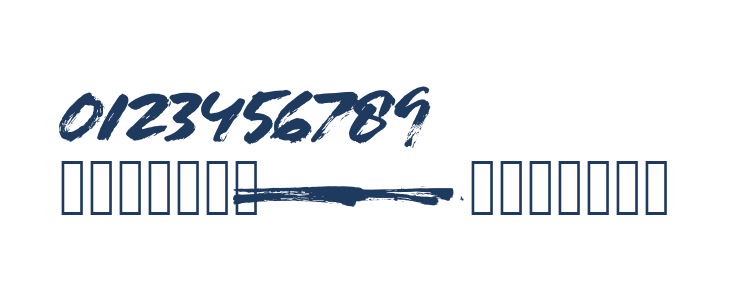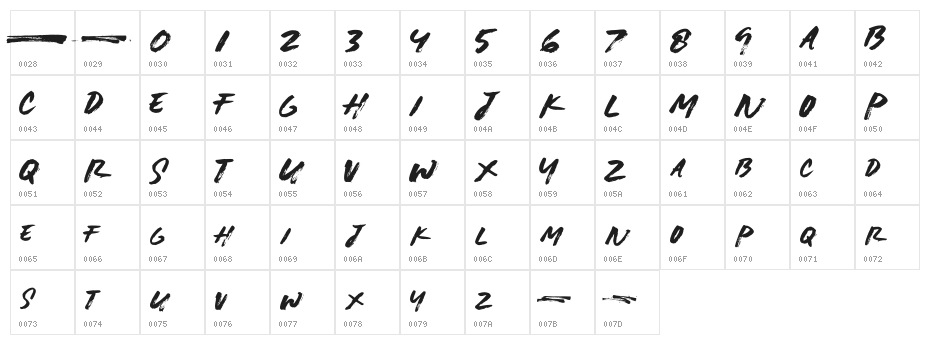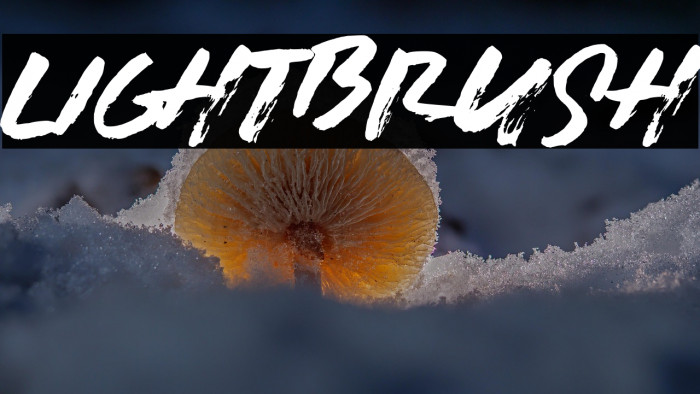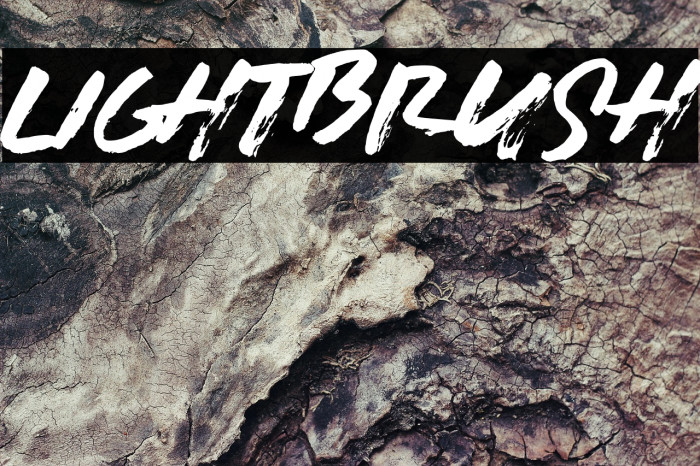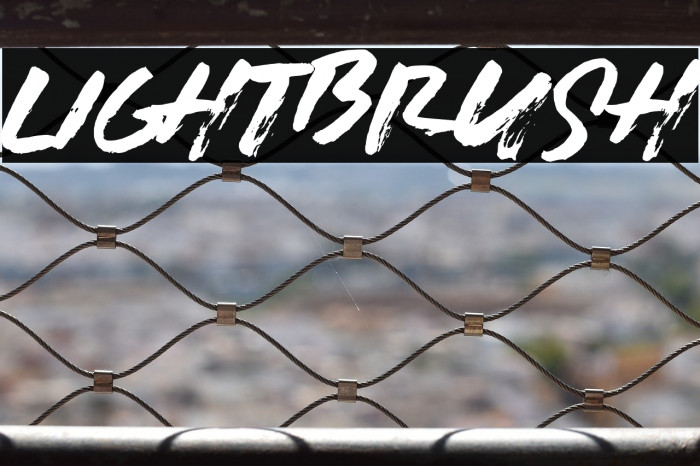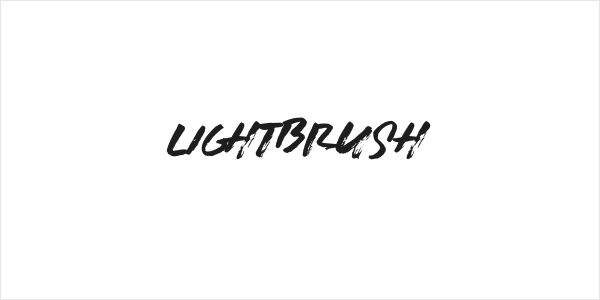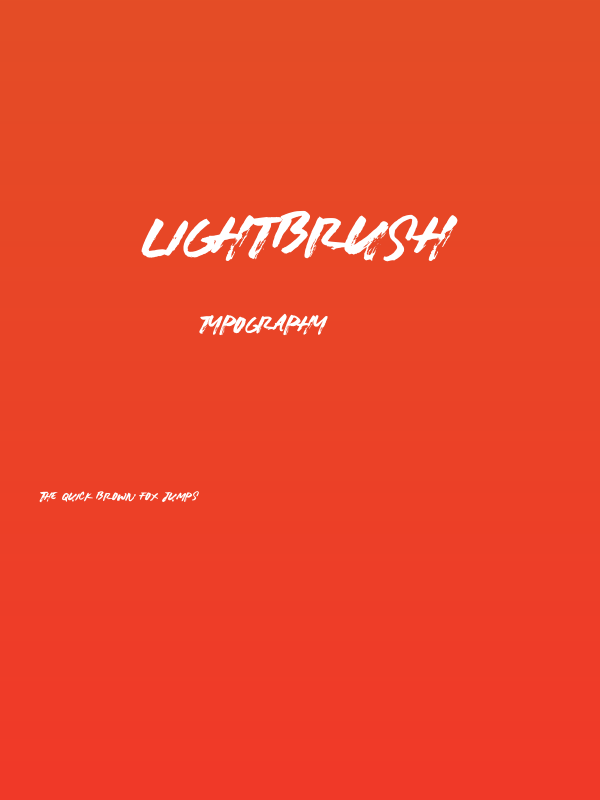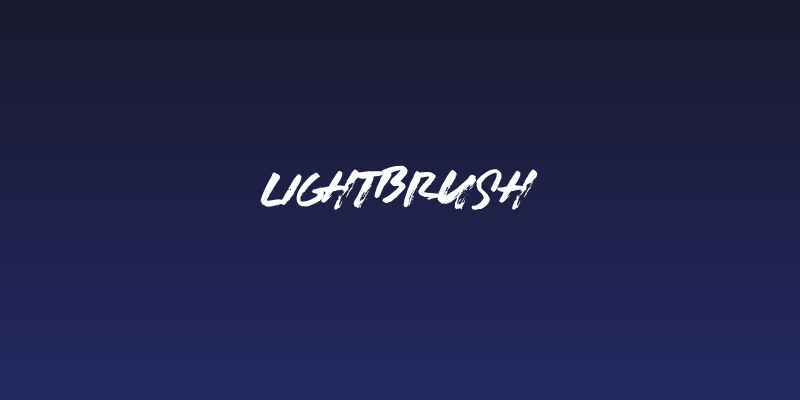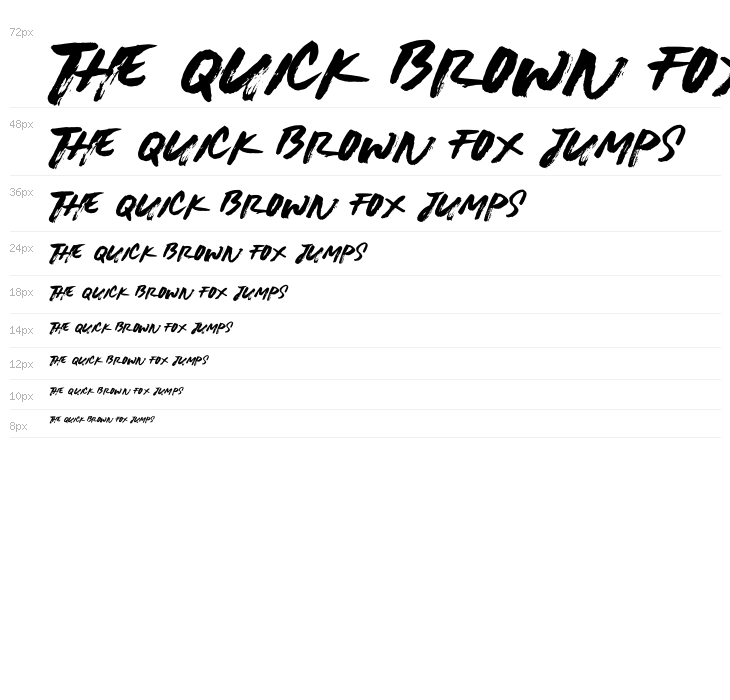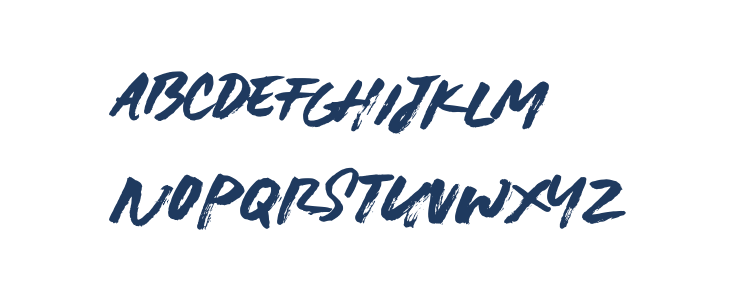
LIGHTBRUSH Font
LIGHTBRUSH Description
This font exudes a bold and dynamic brushstroke style, characterized by its expressive and energetic appearance. The letters are crafted with a sense of movement and fluidity, giving them a hand-painted look. Each character showcases varying stroke widths, adding to the font's artistic and spontaneous feel. The uppercase and lowercase letters maintain a consistent style, while the numerals and special characters integrate seamlessly with the overall design. This font is perfect for projects that require a touch of creativity and flair, making it ideal for artistic and visually striking applications.
| Proposed Projects | Ideal for branding, posters, album covers, and any design needing a creative, artistic touch. |